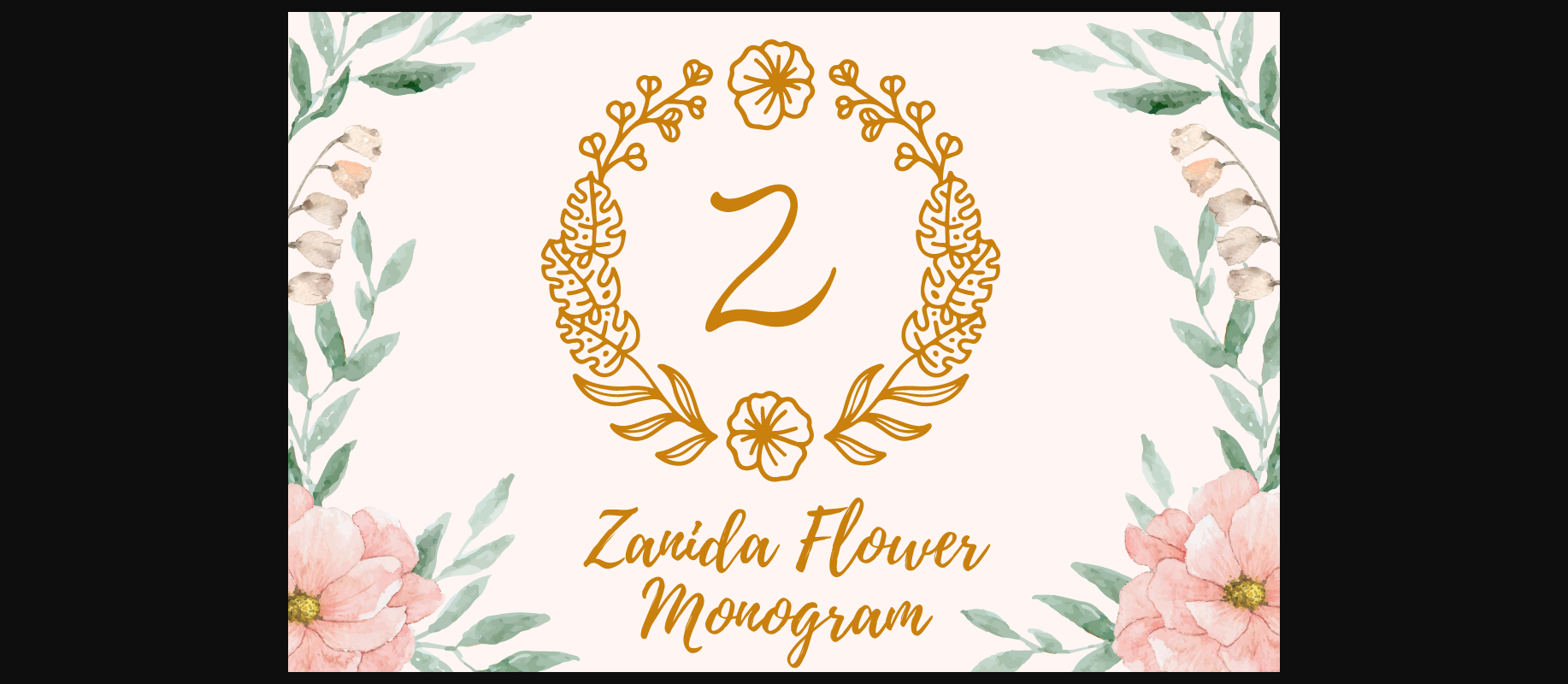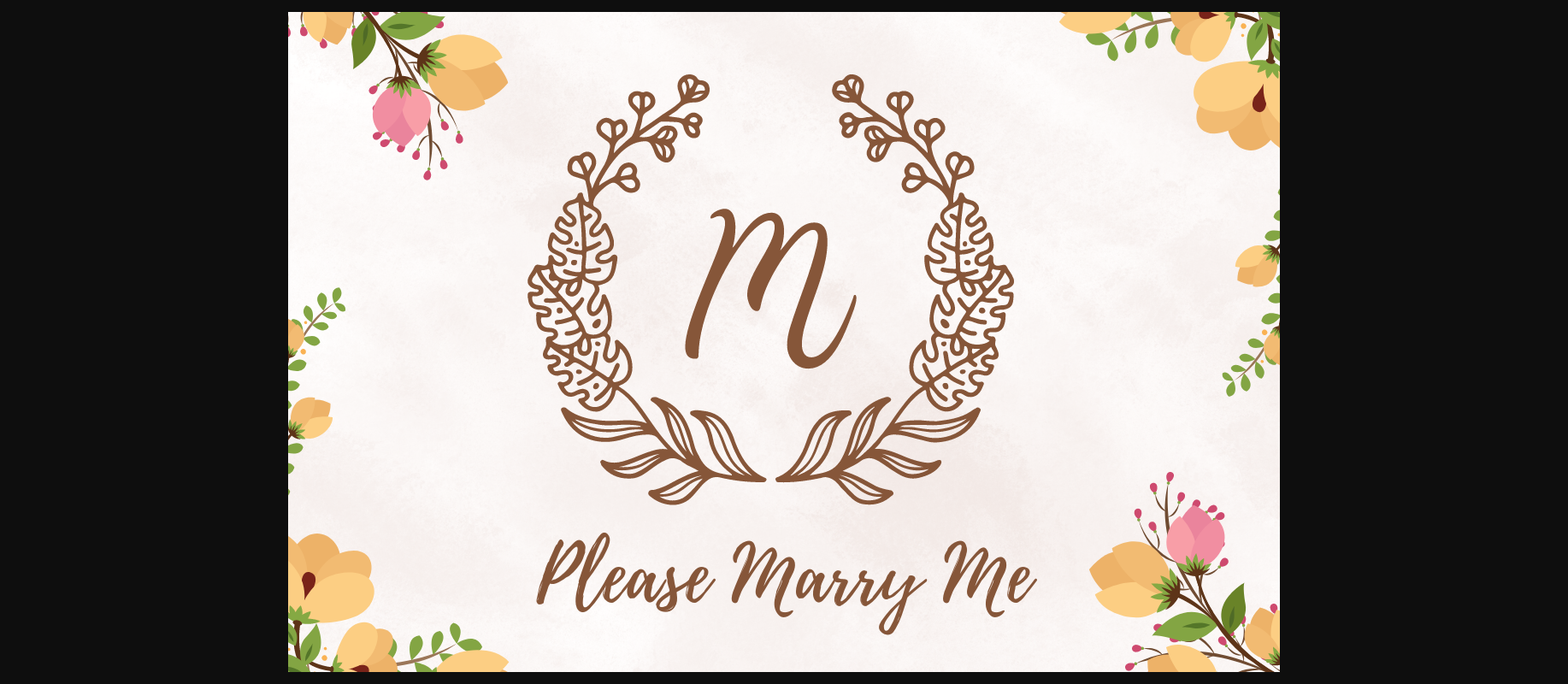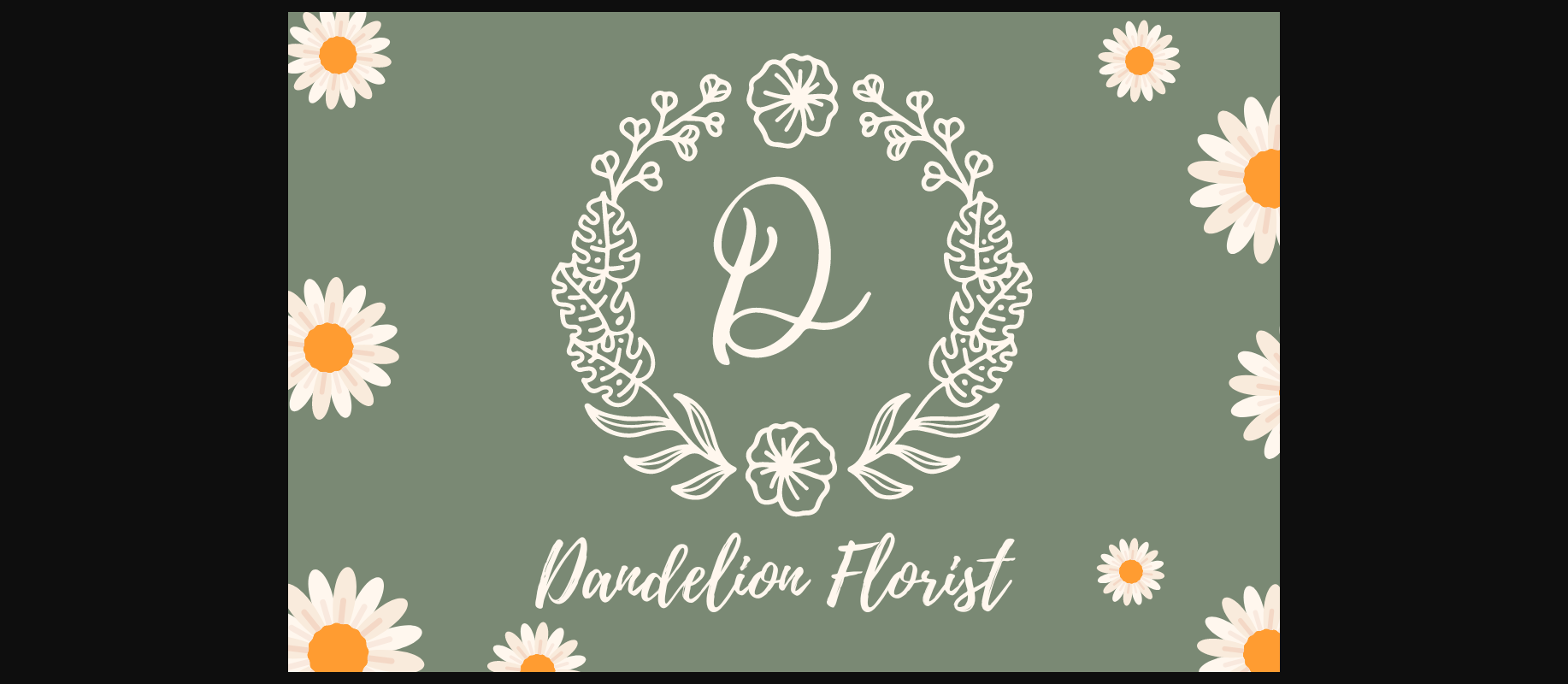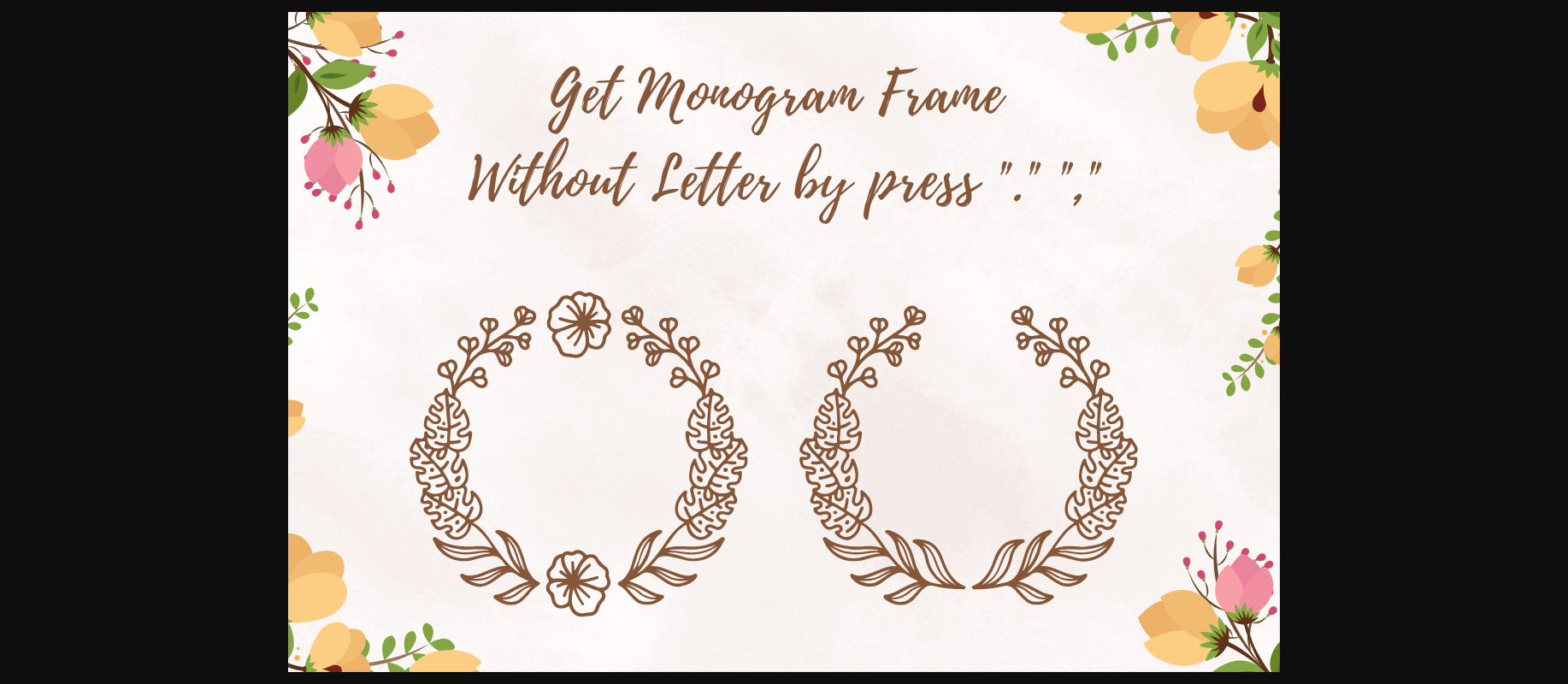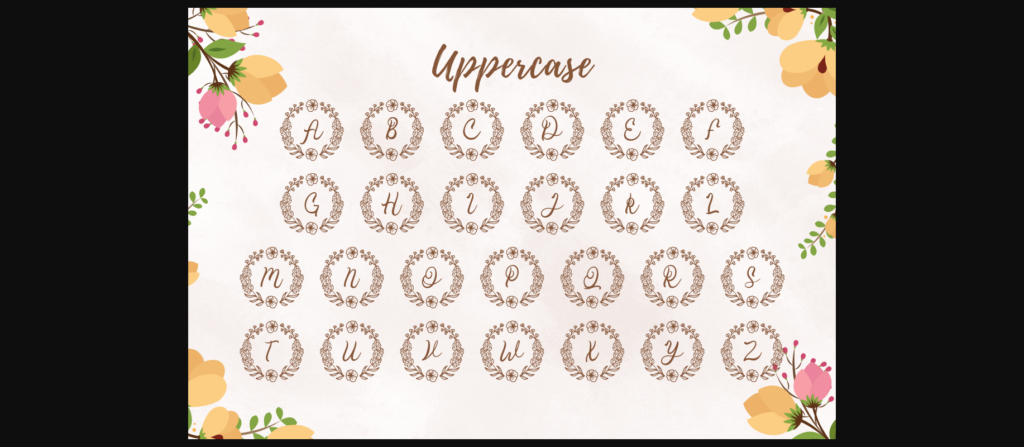
Zanida Flower Monogram is a lovely and adorable decorative font. With beautiful botanical wreaths and ornaments, this font is perfect for all your designs that require a gentle, romantic look.